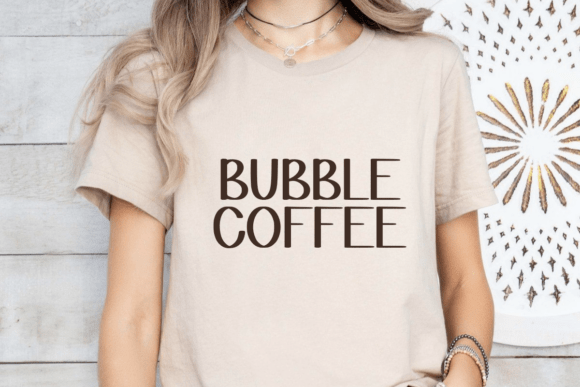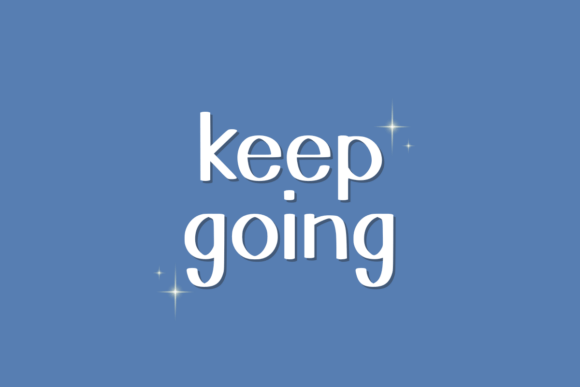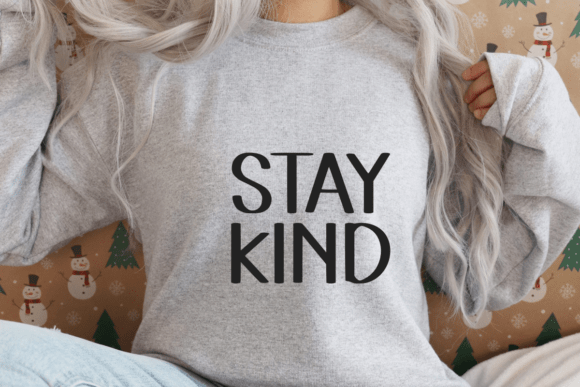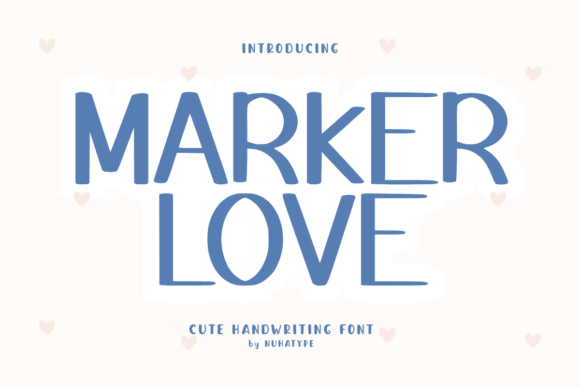
Introduction to Marker Love Font
Marker Love is a cute sans serif handwriting font designed with a soft, friendly, and natural look.
This font brings a warm handcrafted feeling that works beautifully for craft projects, planners, stickers, kids’ worksheets, classroom printables, and DIY designs Its simple strokes and smooth curves make it easy to cut using Cricut and Silhouette, and perfect for crafting moms who love adorable handwritten styles.
Why Choose Marker Love Font?
Marker Love Font offers exceptional quality and versatility, making it a valuable addition to your design toolkit. Whether you’re creating for personal projects or commercial use, Marker Love Font delivers professional results.